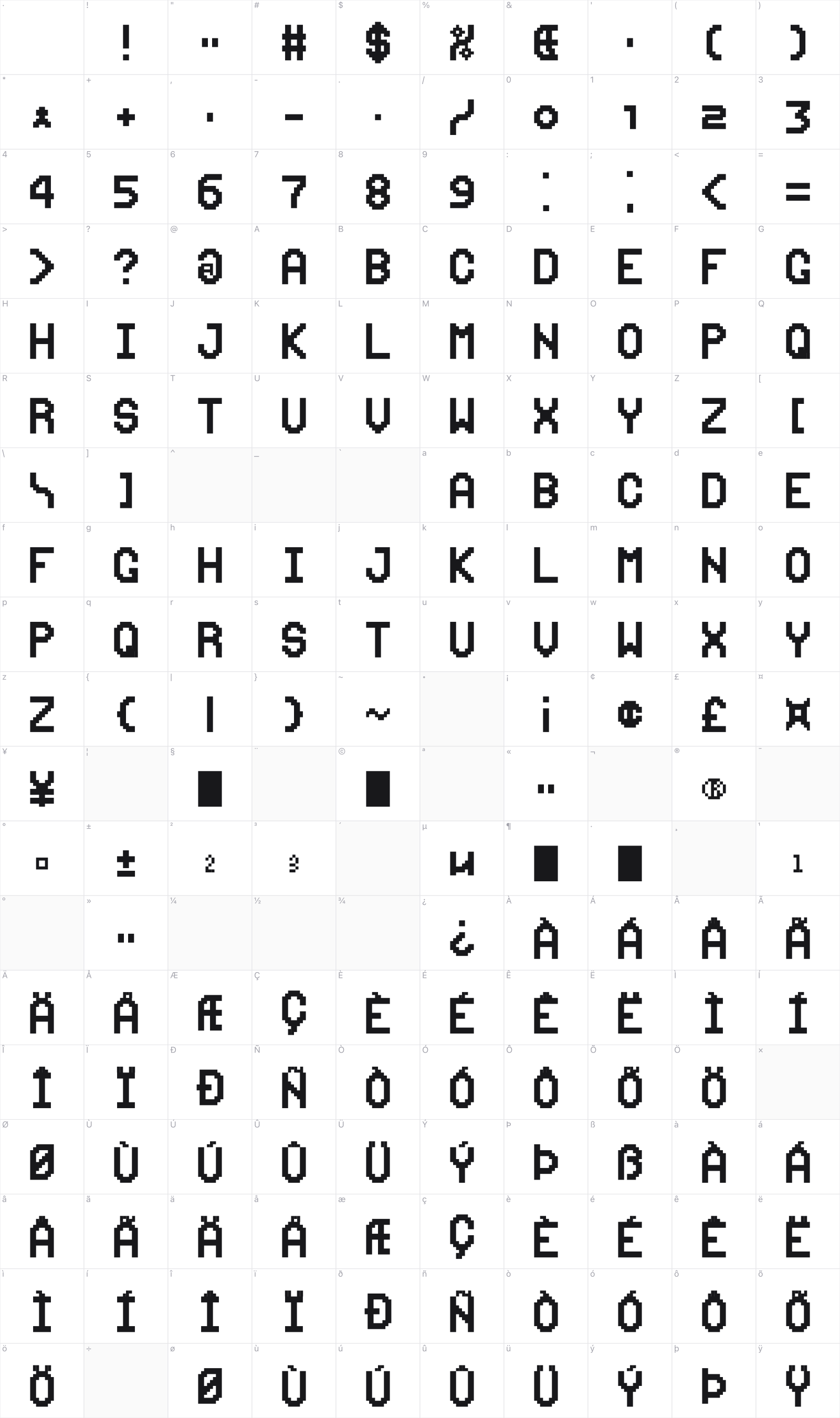
New Browserlink
by Xavier Haag
New BrowserlinkLicense is a bold bitmap pixel font built on a square grid, evoking early computer screens and web browsers of the 1990s. Every character is constructed from uniform square pixels with no stroke variation, giving it an honest, unadorned digital quality. It works best at display sizes where the grid structure reads as intentional style rather than limitation.